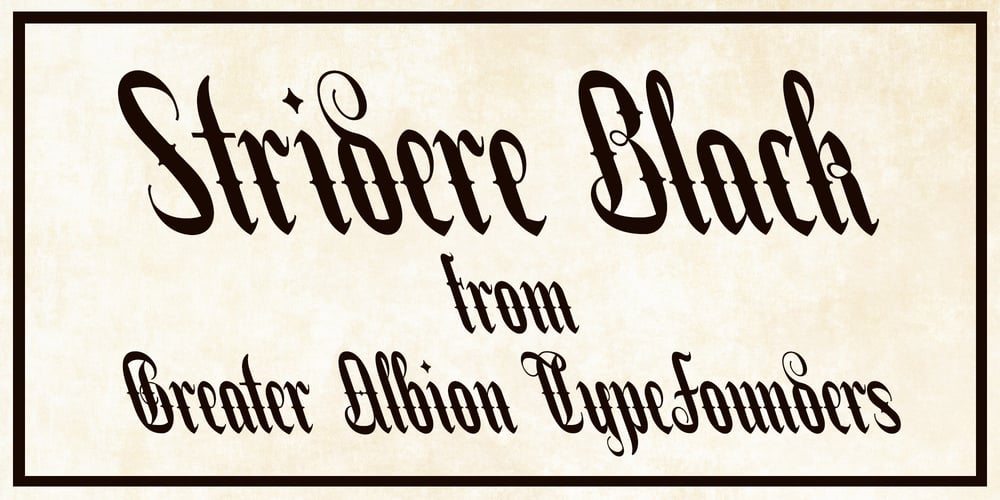
Stridere Font Family was designed by Paul James Lloyd and published by Greater Albion Typefounders. Stridere contains 1 styles and family package options. Think of a slender Black Letter screeching to a halt on the page and you have the essential idea of Stridere. Want ornate formality and fast movement all in one? Here it is!